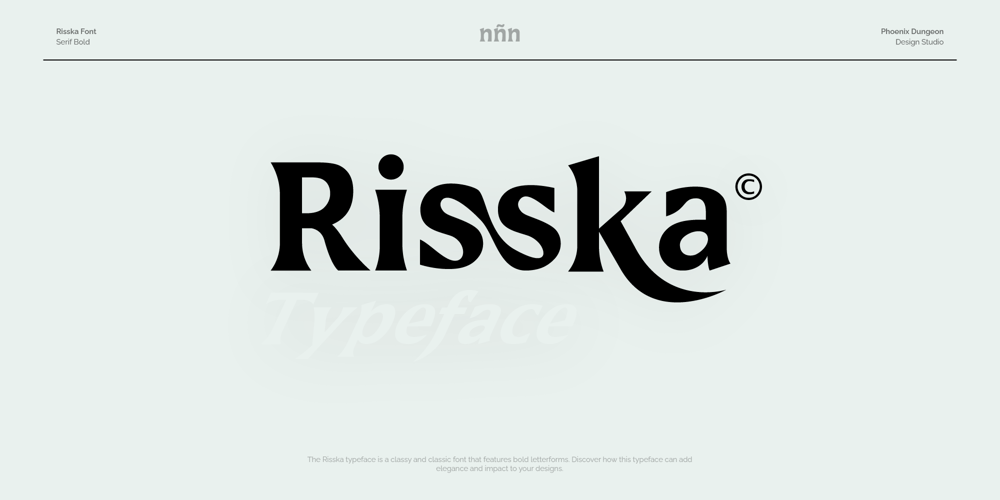
Risska Font Family was designed by Alif Naufal Muzakki and published by Phoenix Group. Risska contains 4 styles and family package options. The Risska typeface is a classy and classic font that features bold letterforms. Discover how this typeface can add elegance and impact to your designs.